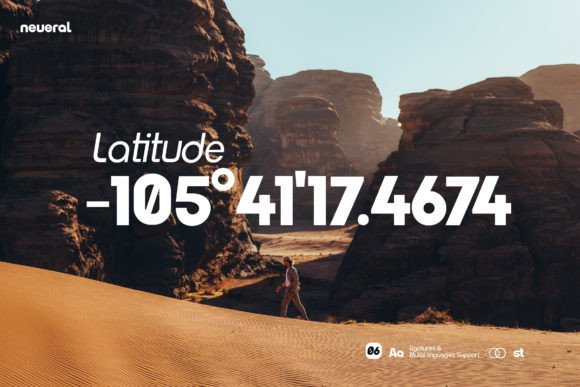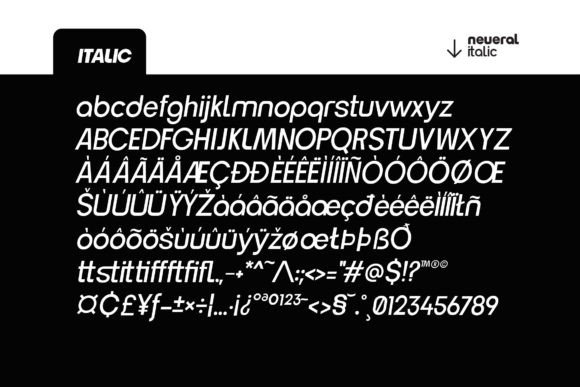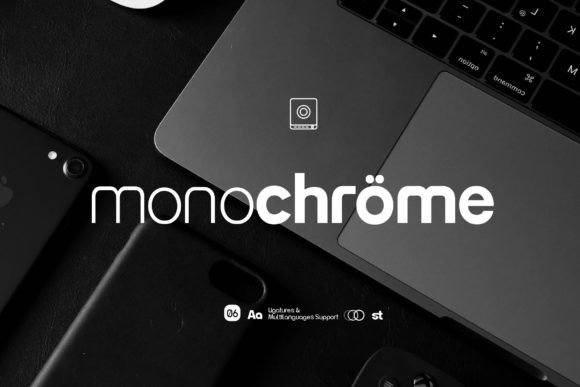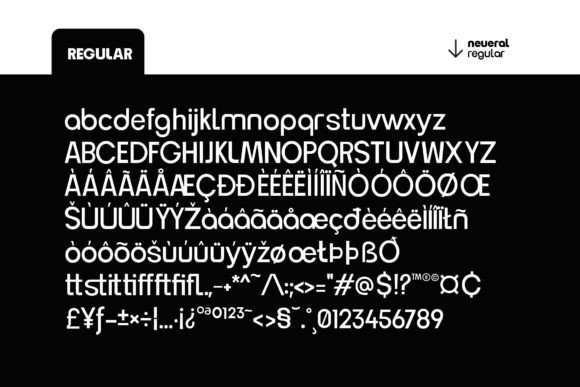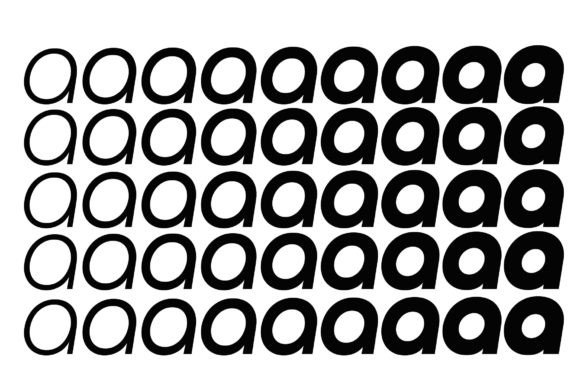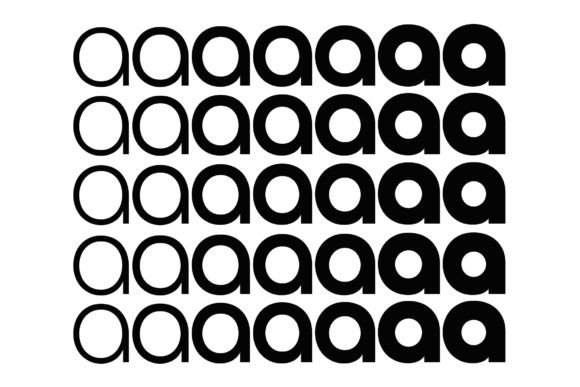
Introduction to Neueral Grotesk Variable Font
As a designer, there’s nothing quite like the thrill of discovering a new font that perfectly captures the essence of your creative project. For me, it’s that moment when the words start flowing, and the design begins to take shape. And that’s exactly what the Neueral Grotesk Variable Font offers – a world of possibilities for designers looking to elevate their work with high-quality typography.
With its semi-round and geometric sans serif design, Neueral Grotesk Variable Font is the ultimate design resource for crafting logos, articles, wayfinding systems, branding, and more. Its 18 variations, including Latin simple ligatures, ensure a diverse range of typographic possibilities, making it an invaluable asset for any creative project.
Whether you’re working on a business card, a brochure, or a website, Neueral Grotesk Variable Font provides the perfect balance of style and functionality, allowing you to focus on the creative aspects of your project without worrying about the typography. And the best part? It’s available for free download, making it an accessible design tool for designers of all levels.
Key Features of Neueral Grotesk Variable Font
- Variable font technology allows for precise control over font weight, width, and other design elements, making it perfect for custom typography.
- Transparent background, making it easy to combine with other design elements and maintain a clean, modern look.
- Designed to be highly legible, even at small font sizes, making it an excellent choice for digital displays and print materials.
- Perfect for designers and creatives looking for a high-quality, versatile font that can adapt to different design requirements.
Honest Review: Neueral Grotesk Variable Font
I recently had the chance to dive into the Neueral Grotesk Variable Font and I must say, it’s a game-changer for any designer working on a creative project. This high-quality font is a versatile design resource that can elevate your work to the next level.
One of the things that stands out about the Neueral Grotesk Variable Font is its level of customization. With a free download available, you can experiment with different weights and styles to find the perfect fit for your project.
- What works well: ✨ The font’s transparency feature allows for seamless integration with transparent backgrounds, giving your designs a professional look.
- What works well: ✨ The Neueral Grotesk Variable Font is incredibly versatile, making it a great choice for a wide range of creative projects.
While the Neueral Grotesk Variable Font is an excellent design resource, there are a few limitations to consider. ⚠️ One potential issue is that the font may not be suitable for very small font sizes, which could affect readability.
Overall, I’m thoroughly impressed with the Neueral Grotesk Variable Font. Its high quality, flexibility, and free download make it a must-have for any designer working on a creative project.
Experiment with different font weights and styles to create visual interest.
Use the Neueral Grotesk Variable Font in combination with other design elements to create a cohesive look.
Take advantage of the font’s versatility to create unique and engaging designs.
The Neueral Grotesk Variable Font is suitable for a wide range of creative projects, including:
– Branding and identity design
– Digital marketing materials
– Print design
– Web design